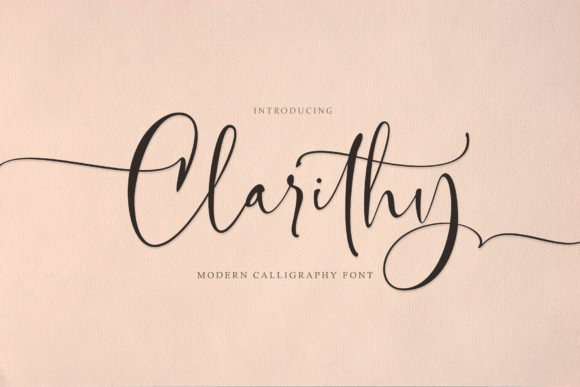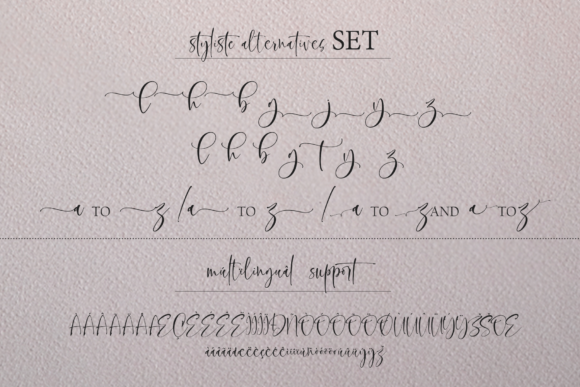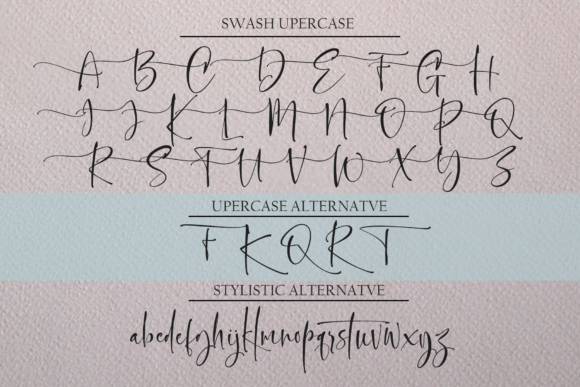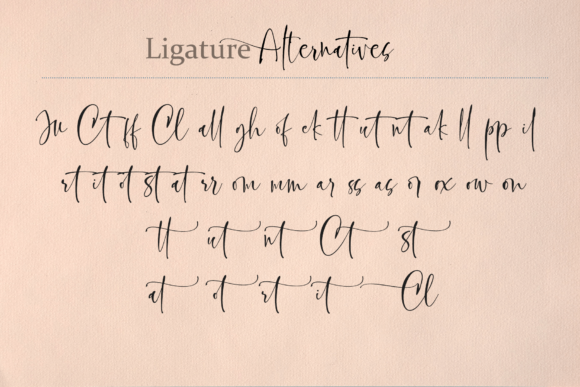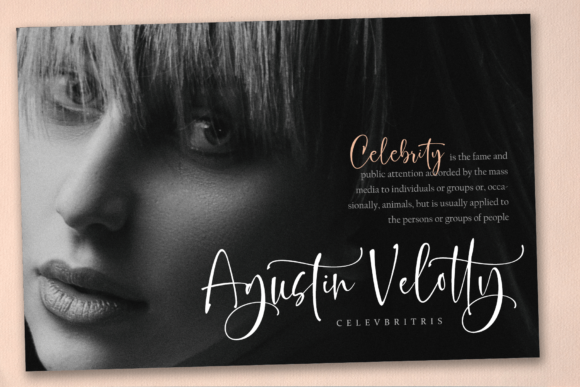
About Clarithy Font
Clarithy is an exquisite handwritten font that effortlessly combines elegance, class, and contemporary style. With its refined calligraphic influences, this font adds a touch of sophistication to any design project. Its timeless appeal makes it a true favorite among designers and creatives alike.
One of the standout features of Clarithy is its ability to strike a balance between traditional calligraphy and modern aesthetics. The graceful curves and fluid strokes of the letterforms capture the essence of classic script fonts, while subtle contemporary elements add a fresh and unique twist. This harmonious blend creates a font that is both timeless and versatile.
Fall in love with Clarithy and watch as it elevates your projects to new heights. Its elegant and refined look makes it suitable for a wide range of applications. From wedding invitations and elegant stationery to branding materials, logos, and social media posts, Clarithy brings a touch of sophistication to every design.
The PUA encoding of Clarithy ensures easy accessibility to all its beautiful glyphs and swashes. This means that you can effortlessly customize your designs by accessing the full range of available characters. Whether you want to add stylish swashes, decorative flourishes, or alternate letterforms, Clarithy provides you with the tools to create stunning and personalized designs.
Moreover, Clarithy is designed with legibility in mind. Each letter is carefully crafted to maintain clarity and readability, even at smaller sizes. This makes it suitable for various mediums, whether it’s print materials or digital platforms.
By choosing Clarithy for your projects, you can create designs that exude elegance and professionalism. Its timeless appeal and contemporary flair make it a font that stands out from the crowd. Whether you’re designing for a formal event, a luxury brand, or simply want to add a touch of sophistication to your creative endeavors, Clarithy is the perfect choice.
In summary, Clarithy is an exquisite handwritten font that combines classic calligraphic influences with a contemporary twist. Its elegance, versatility, and PUA encoding make it a true favorite among designers. Fall in love with Clarithy and let its timeless charm and refined style bring your projects to new levels of sophistication.